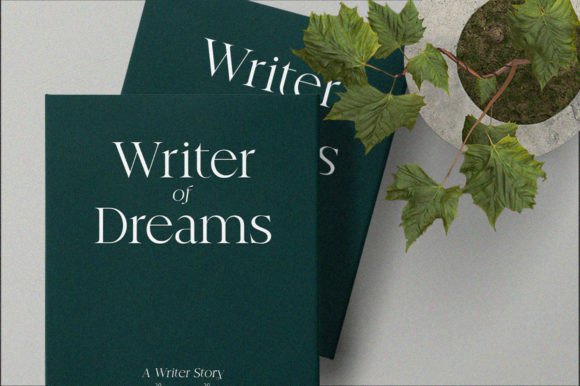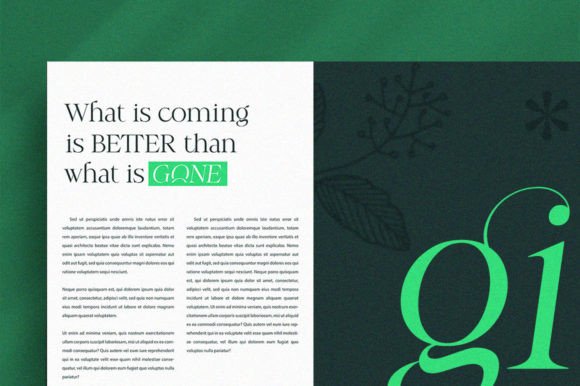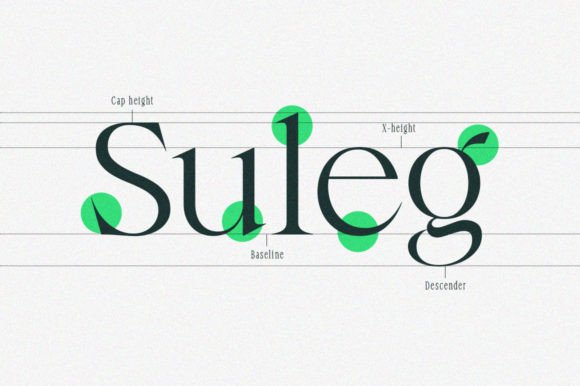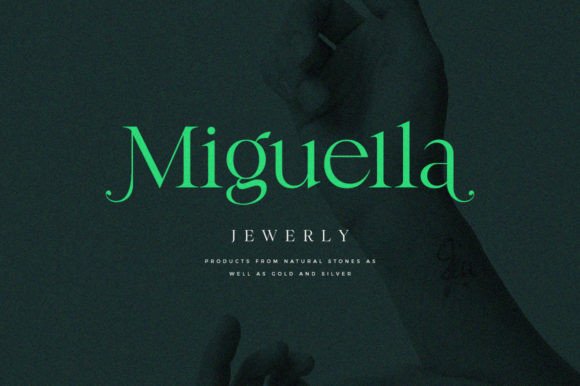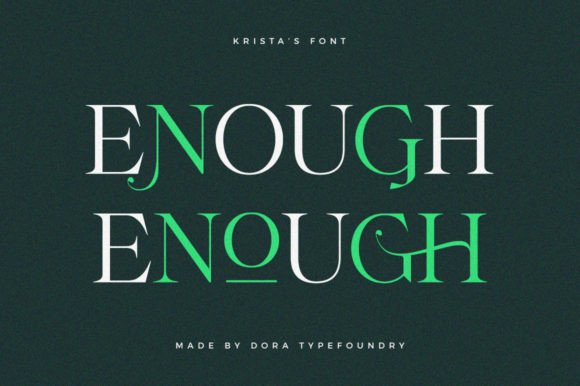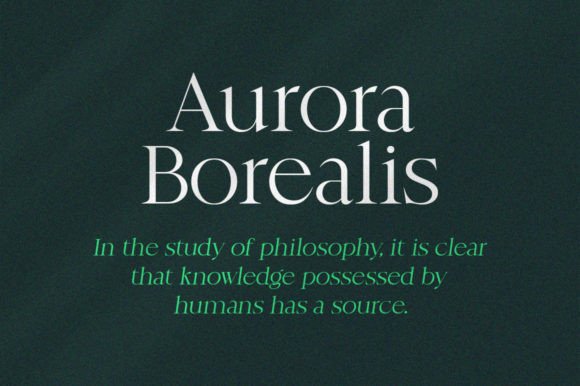
Introduction to Krista’s Font
Have you ever been working on a creative project, pouring your heart and soul into it, only to feel like something’s missing? That’s where the perfect design resource can make all the difference. For those looking to elevate their designs to the next level, I’m excited to introduce you to Krista’s Font – a sophisticated, charming serif font that exudes luxury and elegance.
With its fashionable touch and high quality design, Krista’s Font is the perfect choice for creating modern, chic designs that are sure to impress. Whether you’re working on a wedding invitation, a fashion blog, or a high-end product design, this font is sure to add a touch of sophistication and class to your project.
Key Features of Krista’s Font
- High-quality design for creative projects, suitable for a wide range of applications, including graphic design, digital art, and publishing.
- Unique, hand-drawn style with intricate details and textures, perfect for adding a personal touch to designs.
Honest Review: Krista’s Font
As a designer, I’m always on the lookout for high-quality design resources that can elevate my creative projects. Krista’s Font is one such resource that has caught my attention, and I’m excited to share my honest review with you.
- ✨ High-quality typography: Krista’s Font boasts beautiful, elegant lettering that is perfect for adding a touch of sophistication to your design projects.
- ⚠️ Limited font styles: While Krista’s Font has some beautiful styles, the selection is relatively limited, which may not be suitable for designers who need a wide range of font options.
Overall, I’m impressed with Krista’s Font, and I think it’s a great addition to any designer’s toolkit. While it has some limitations, its high-quality typography and transparent background make it a valuable resource for creative projects. I’d definitely recommend giving it a try if you’re looking for a free design resource.
Krista’s Font is perfect for a variety of use cases, including logo designs, branding materials, and digital art. Its high-quality design and transparent background make it a popular choice among designers.
To get the most out of Krista’s Font, use it in combination with other design elements, such as images and graphics. Experiment with different font sizes and styles to create a visually appealing design. With Krista’s Font, you can create unique and professional designs for your creative project.